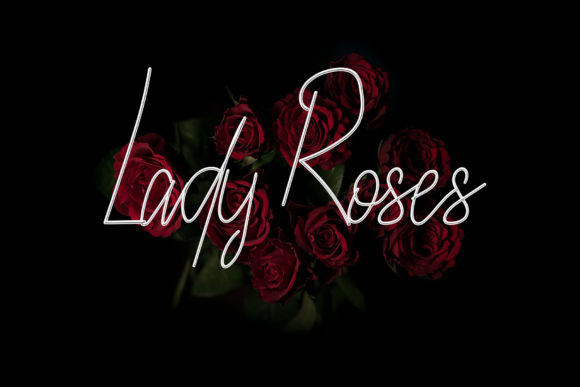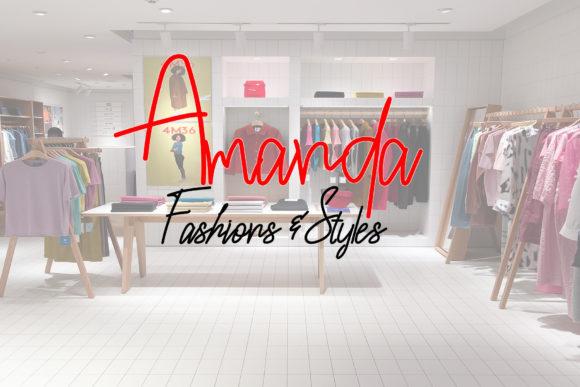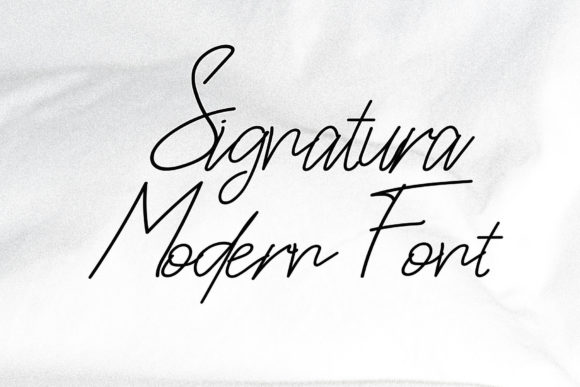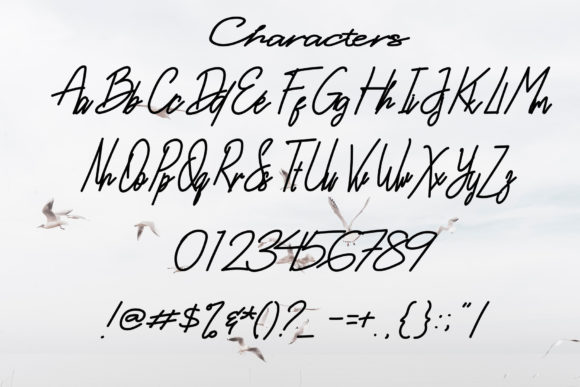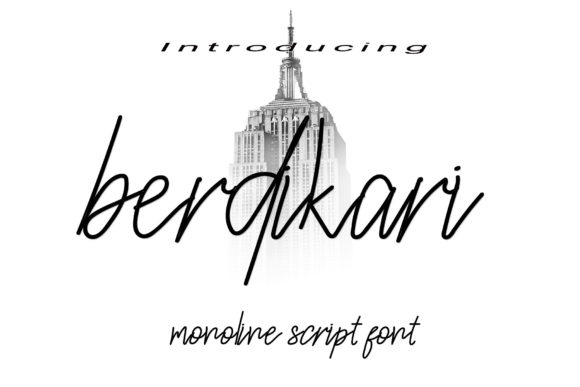
Berdikari Font: Elevate Your Designs with Elegance and Sophistication
In the world of typography, a font can make or break a design. For designers and crafters seeking to add a touch of class and sophistication to their work, Berdikari Font is an excellent choice. This beautiful, thin, and refined script font is perfect for creating stunning logos, branding materials, invitations, stationery, wedding designs, social media posts, and more.
The Characteristics of Berdikari Font
Berdikari Font boasts a classy, elegant, and modern look that sets it apart from other fonts. Its thin and refined strokes exude a sense of sophistication and luxury, making it ideal for designs that require a high level of refinement. The font’s script style is perfect for adding a personal touch to your work, while its clean lines and precise curves ensure that it remains highly legible.
Uses of Berdikari Font
The versatility of Berdikari Font is one of its most significant advantages. This font can be used in a wide range of design applications, including:
- Invitations and Stationery: Add a touch of elegance to your invitations, business cards, and letterheads.
- Wedding Designs: Make your wedding stationery, signage, and decor truly unforgettable with Berdikari Font.
- Social Media Posts: Elevate your social media presence with stylish and sophisticated text.
Why Choose Berdikari Font?
With so many fonts available, why choose Berdikari Font? Here are just a few reasons:
- Unique and Exclusive: Berdikari Font offers a distinctive look that will set your designs apart from the crowd.
- Highly Legible: The font’s clean lines and precise curves ensure that your text remains easy to read.
- Customizable: Berdikari Font can be easily customized to fit your design needs.
- Time-Saving: With Berdikari Font, you can create stunning designs in a fraction of the time it would take with other fonts.
Tips for Using Berdikari Font
To get the most out of Berdikari Font, here are a few tips:
- Pair with Bold Fonts: Combine Berdikari Font with bold fonts for a striking contrast.
- Experiment with Colors: Try out different colors and textures to add depth to your designs.
- Use for Headings: Berdikari Font is perfect for headings and titles, but can also be used for body text.
Berdikari Font is a beautiful, thin, and refined script font that offers a classy, elegant, and modern look. Its versatility and sophistication make it an excellent choice for designers and crafters seeking to elevate their designs. With its wide range of applications and ease of use, Berdikari Font is sure to become a staple in your design toolkit.